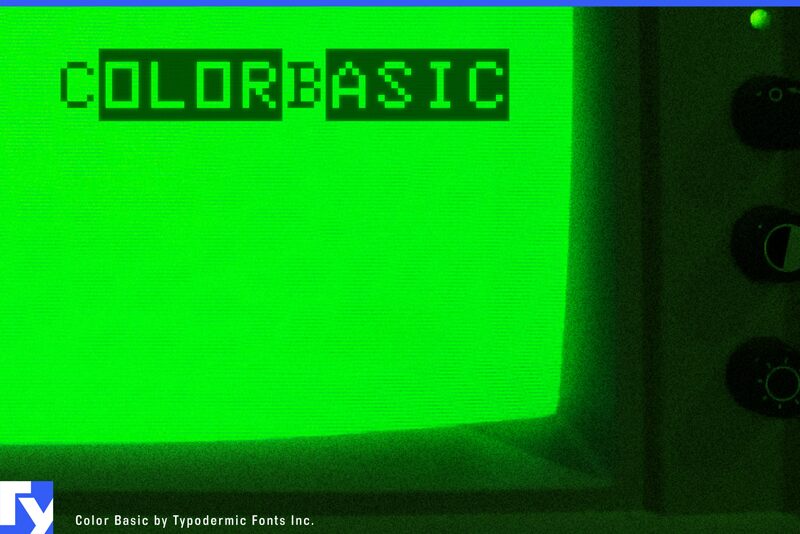
Color Basic was inspired the by TRS-80 Color Computer. The first CoCo models didnt possess a lowercase set. In their place you got a set of bewildering inverse capitals. Color Basic comes with lots of accents and symbols as well as a set of block elements so you can construct your own lousy low-res graphics.
Ray Larabie